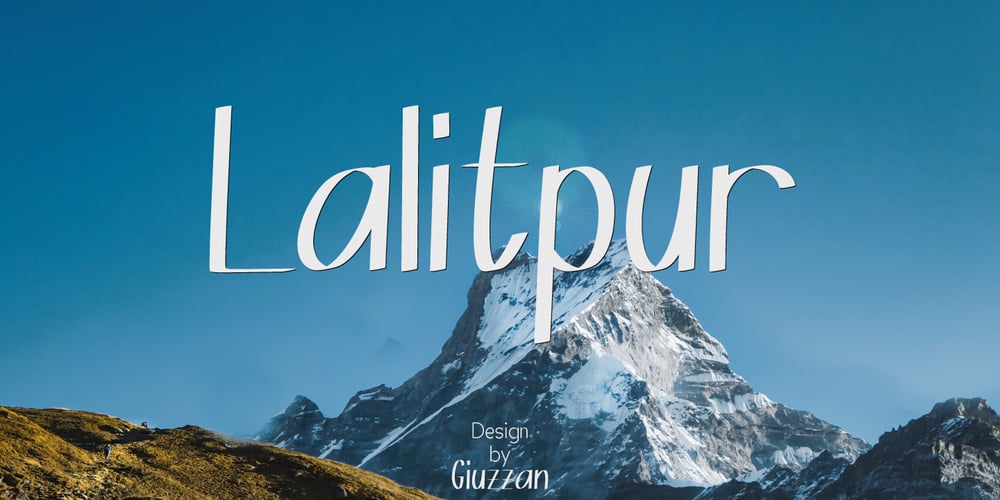
Lalitpur
Lalitpur font
Lalitpur Font Family was designed by Muhamad Fauzan and published by Giuzzan. Lalitpur contains 1 styles and family package options. Lalitpur is an elegant handwritten font that blends sophistication with artistic finesse. Its graceful letterforms and refined design add a touch of timeless elegance to any project.